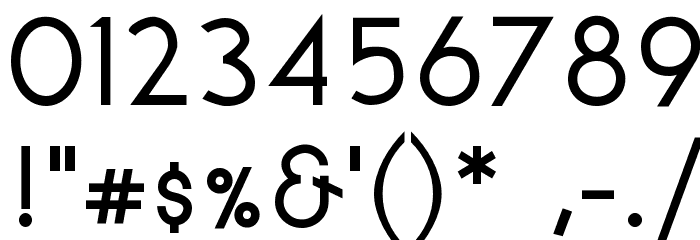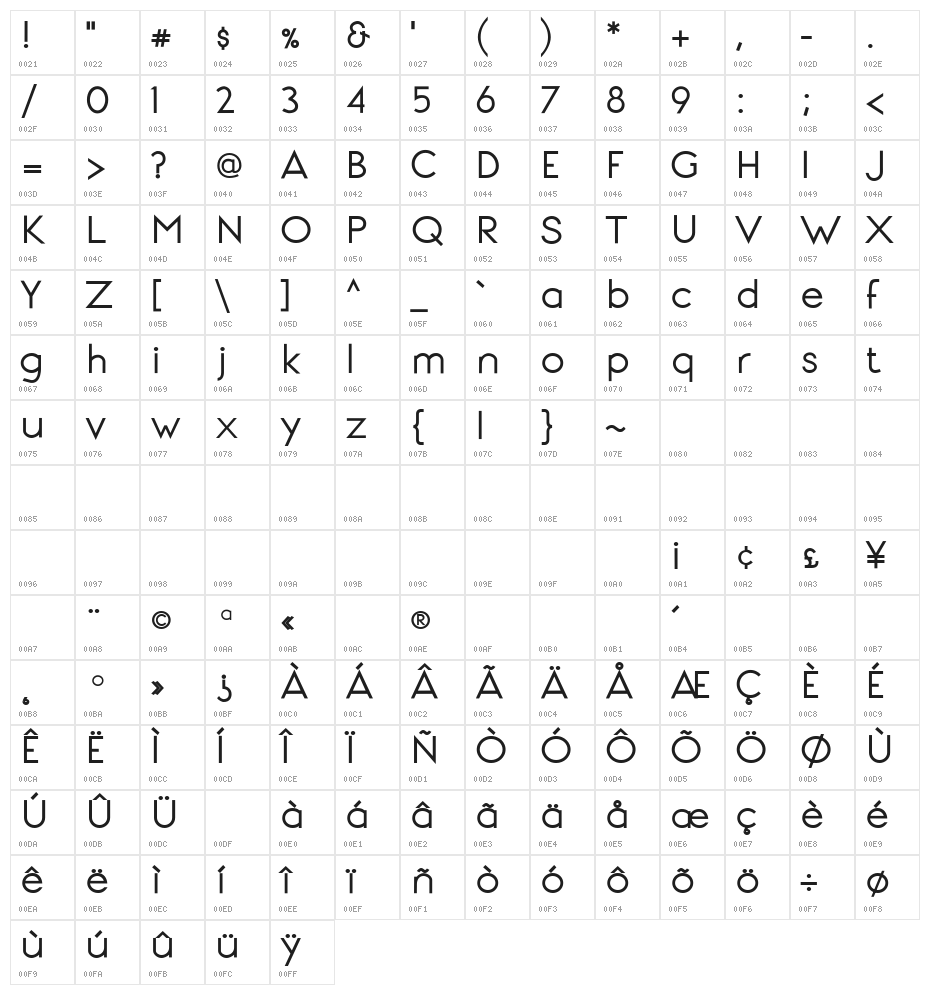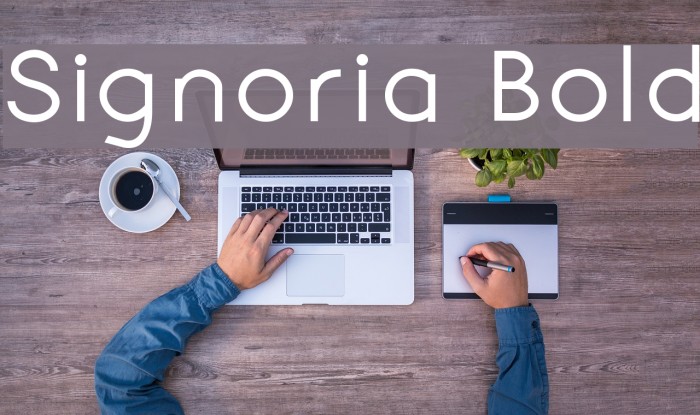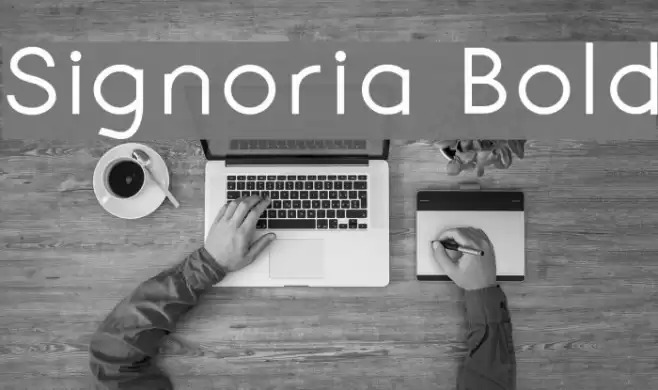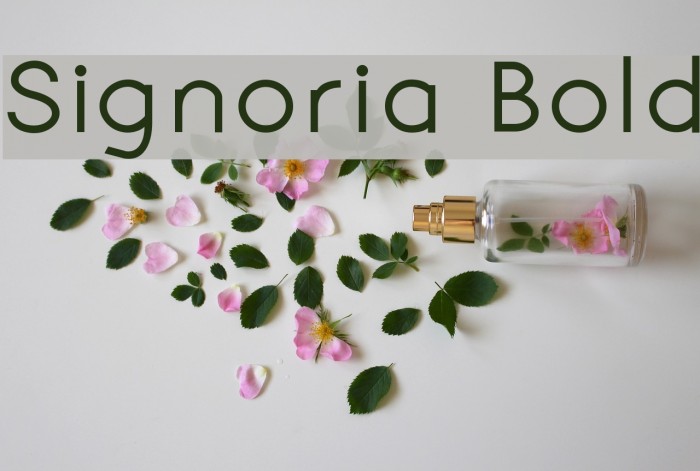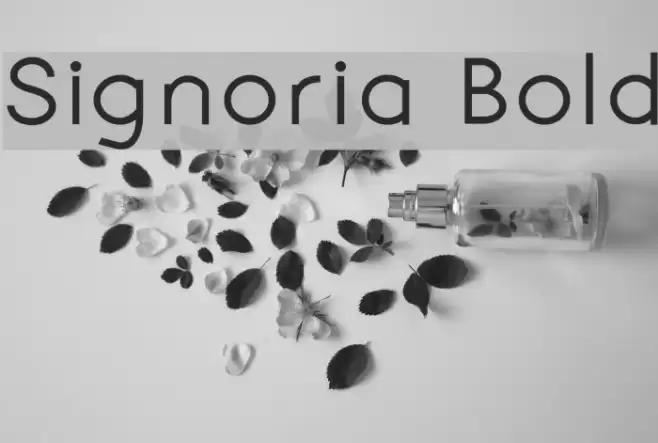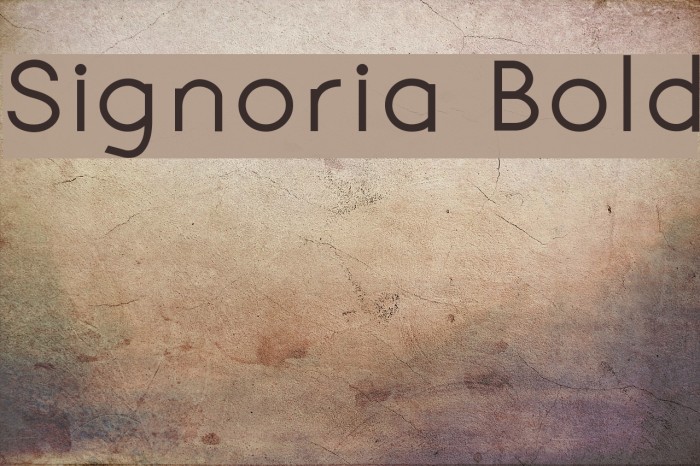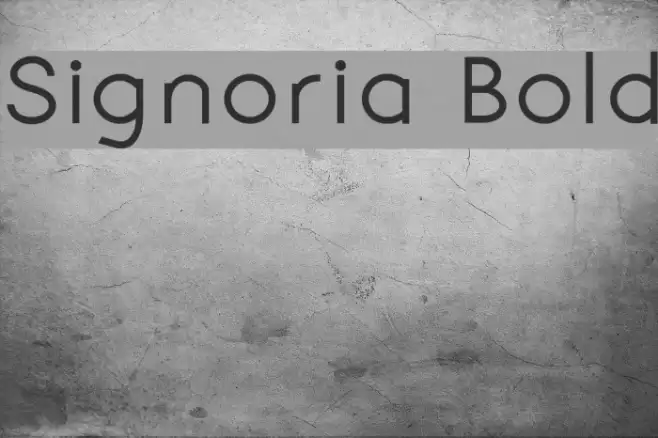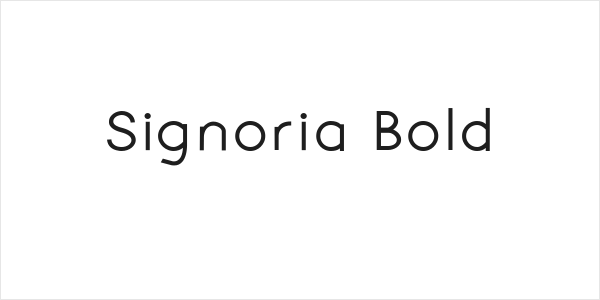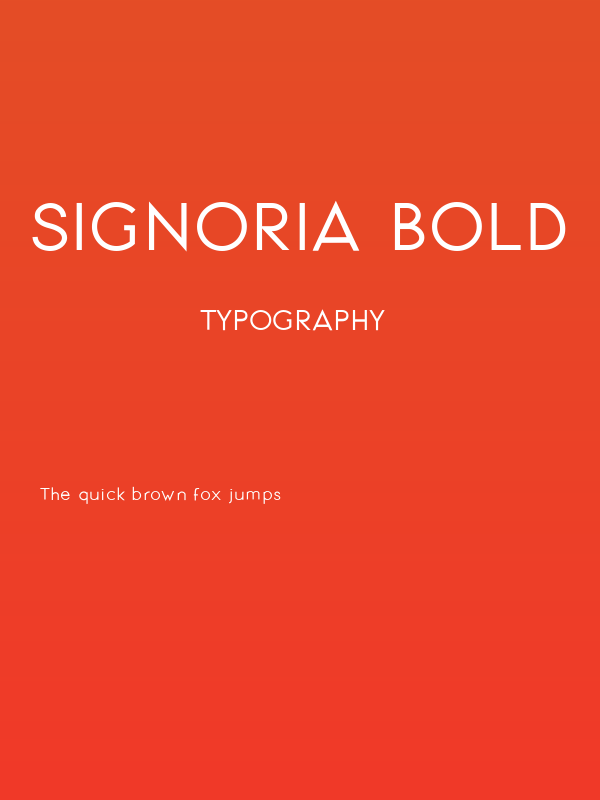
Signoria Bold Font
Signoria Bold Description
This font is a bold, modern sans-serif typeface characterized by clean lines and geometric shapes. The uppercase letters are uniform in height, with a slight curvature that adds a touch of elegance. The lowercase letters maintain a consistent x-height, providing a harmonious balance between the characters. The numerals are clear and legible, making them suitable for various applications. Special characters are well-defined, enhancing the font's versatility. The overall design is sleek and contemporary, making it ideal for projects that require a professional and polished appearance.